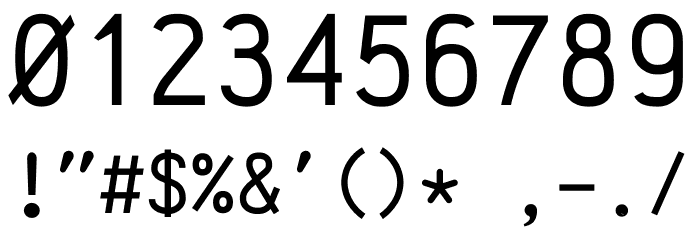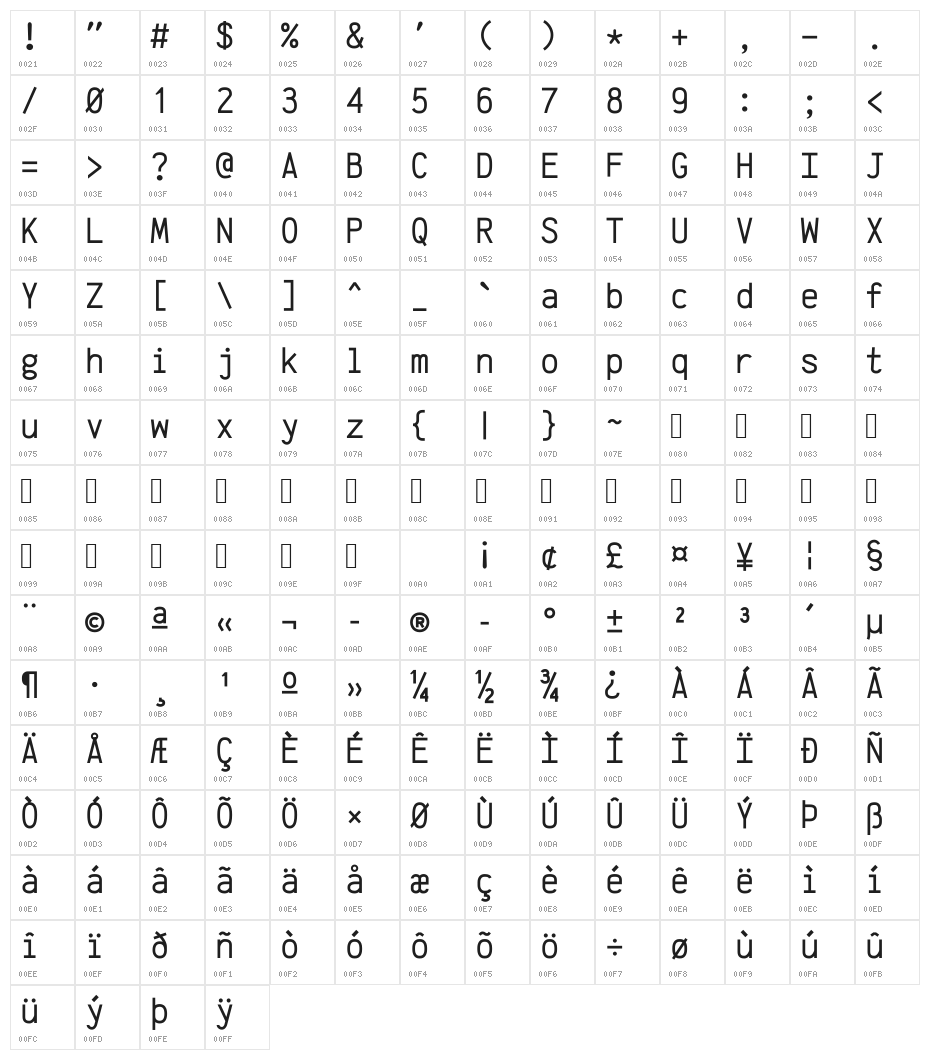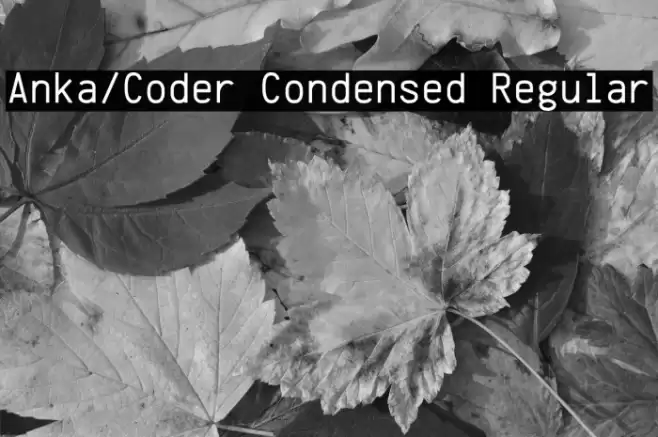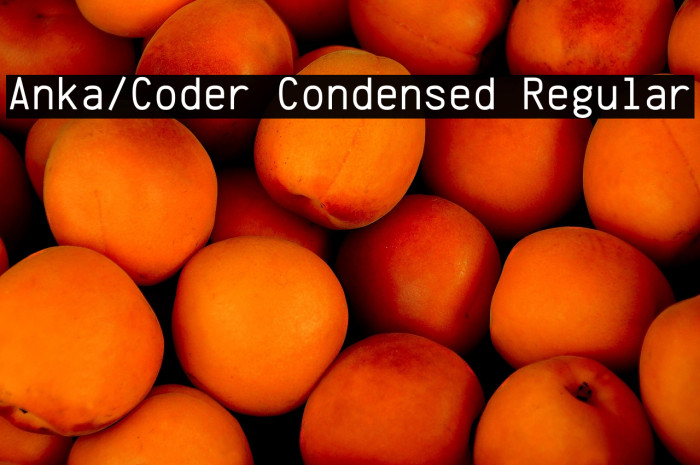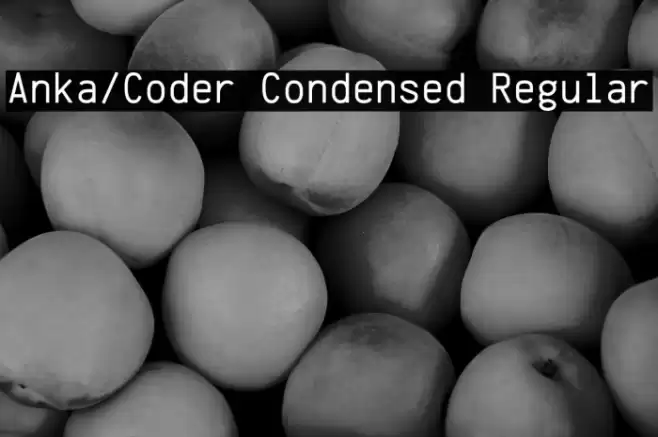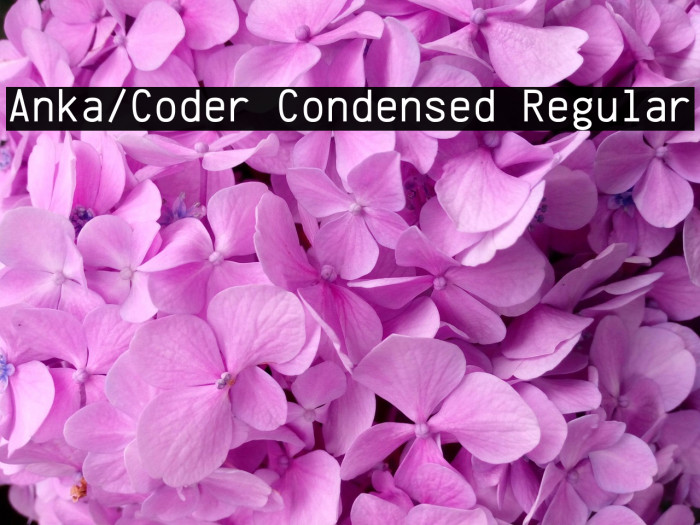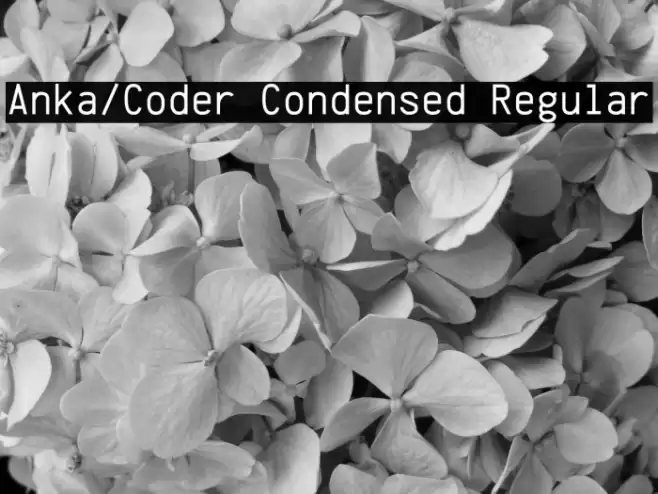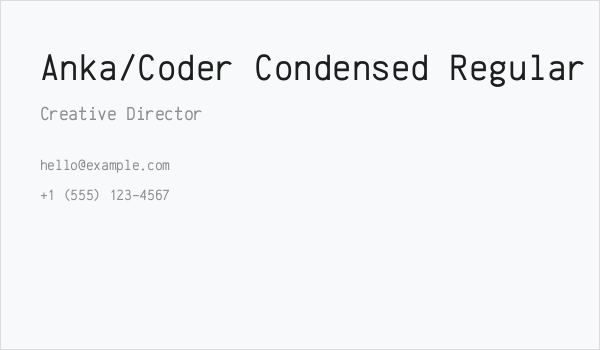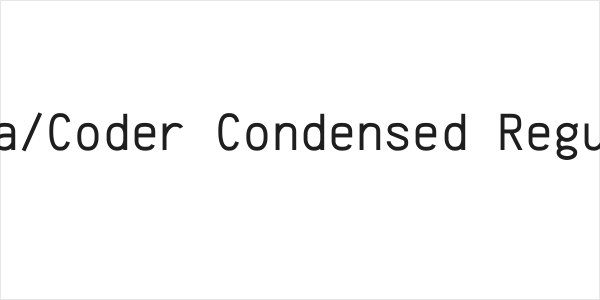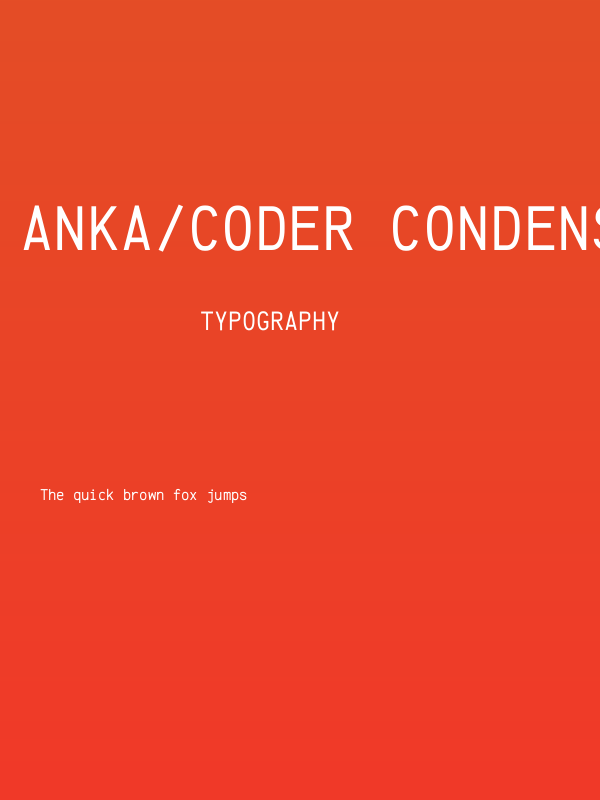
Anka/Coder Condensed Regular Font
Anka/Coder Condensed Regular Description
This typeface features a clean and modern design with a monospaced structure, making it ideal for coding and technical applications. The characters are evenly spaced, providing a uniform appearance that enhances readability. The condensed form allows for more text to fit in a smaller space without sacrificing clarity. Each letter and number is distinct, with a geometric style that emphasizes functionality. The font includes a comprehensive set of special characters, ensuring versatility for various uses.
| Use Case | Coding, Technical documentation, User interfaces |
| Proposed Projects | Ideal for coding environments, technical documentation, and any project requiring a clear, uniform typeface. |